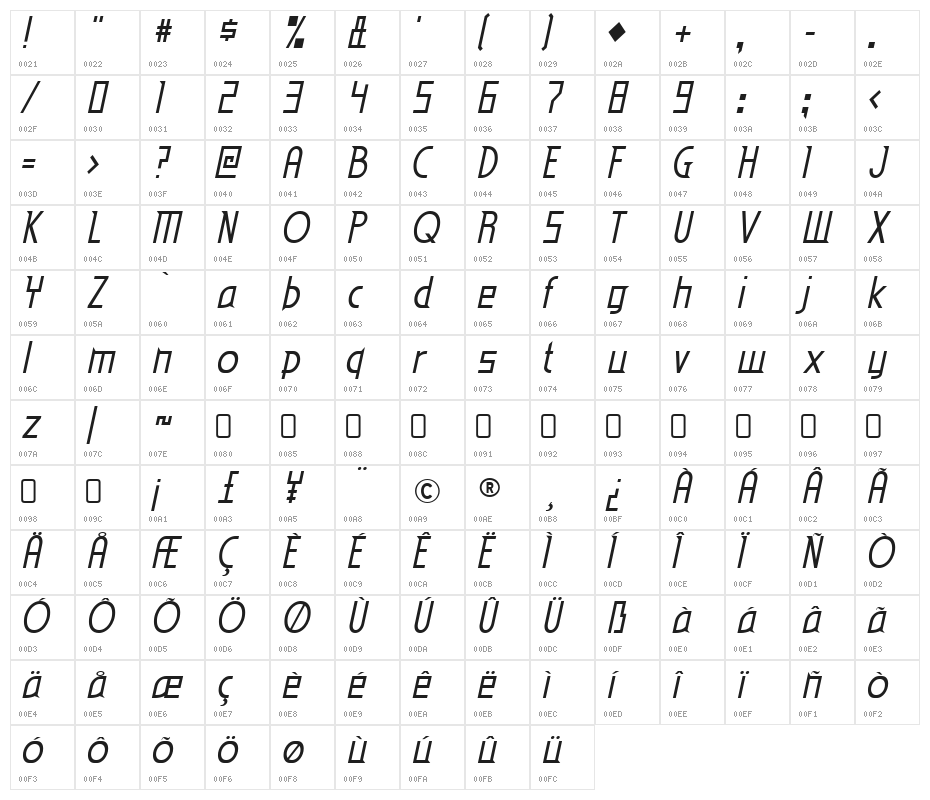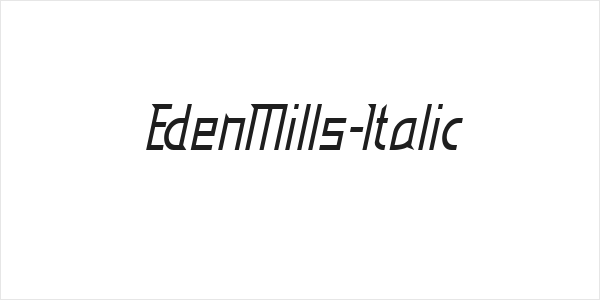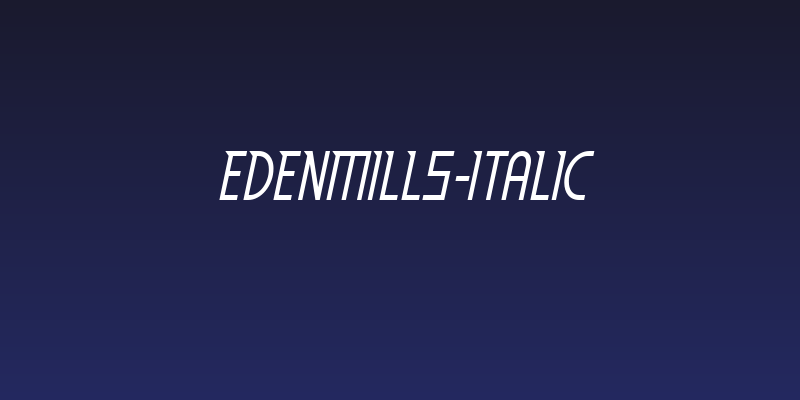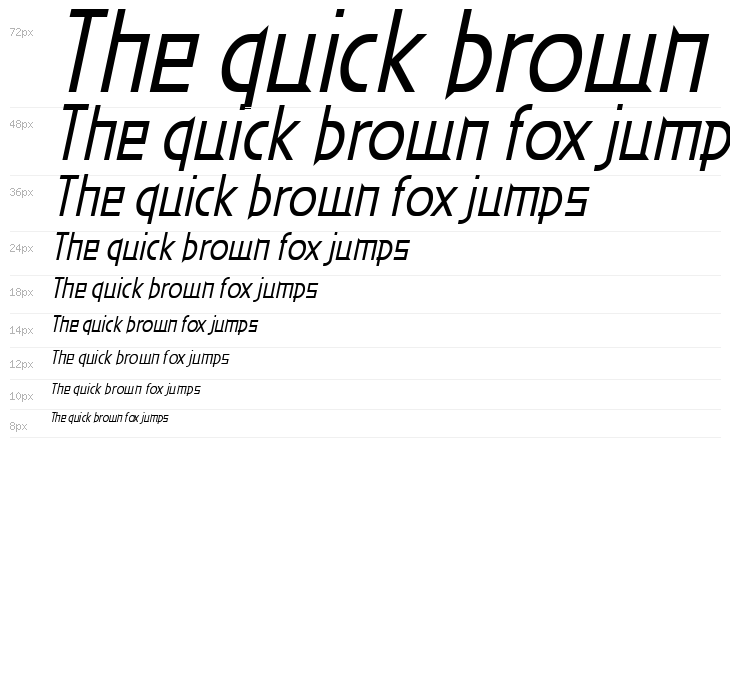
EdenMills-Italic Font
EdenMills-Italic Description
This font features a sleek and modern italic style, characterized by its angular and geometric letterforms. The uppercase letters are tall and narrow, with a consistent slant that adds a dynamic feel. The lowercase letters maintain a similar angularity, creating a cohesive look across the alphabet. Numbers are distinct and easy to read, with a uniform height that matches the uppercase letters. Special characters are designed to complement the overall style, with sharp angles and clean lines. The font's design is both futuristic and versatile, making it suitable for a variety of applications.
| Use Case | Headlines, Logos, Digital interfaces |
| Proposed Projects | Ideal for branding, editorial design, and digital interfaces where a modern and dynamic aesthetic is desired. |